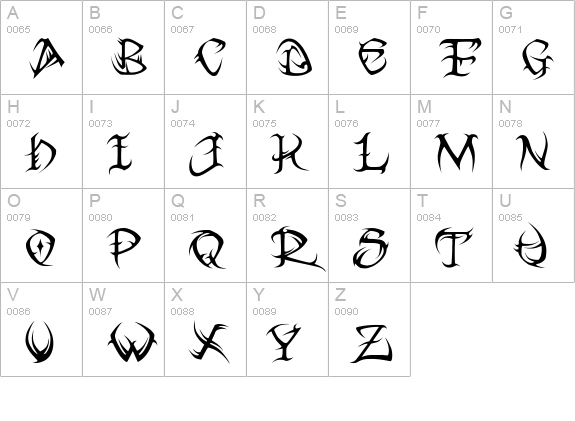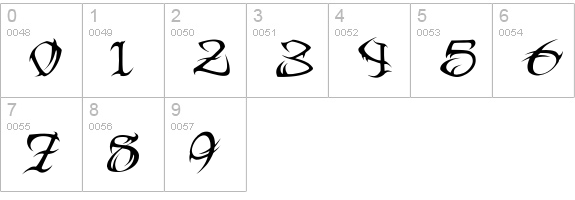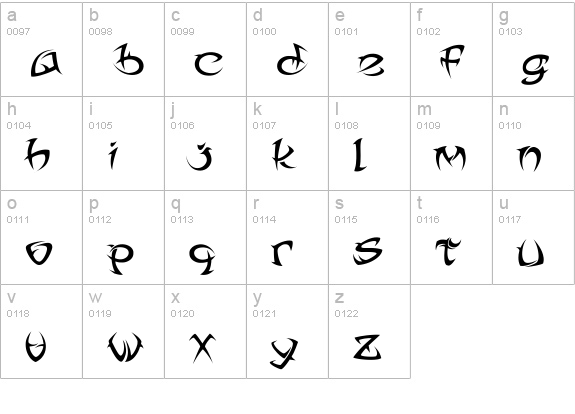
Tribal Two font is a captivating and bold typeface that exudes an air of tribal elegance. With its intricate and ornate design, this font is perfect for adding a touch of mystique and tribal flair to any project. Each letter is carefully crafted with an artistic touch, featuring unique tribal-inspired patterns that make it truly stand out. This font is not only visually stunning but also incredibly versatile. Its strong and distinct style makes it ideal for a wide range of creative applications, from logo design and branding to posters, invitations, and more. Whether you're looking to add a tribal twist to your designs or simply want to make a bold statement, Tribal Two font is sure to captivate and impress. One of the best features of Tribal Two font is that it is freely available to download at FontsMarket.com. This means that you can easily access and use this stunning font without any restrictions or limitations. With just a few clicks, you can bring the captivating essence of tribal art to your projects, without having to spend a penny. So, if you're looking to add a touch of tribal elegance to your designs, look no further than Tribal Two font. With its intricate details, bold style, and free availability, it is the perfect choice for any creative endeavor. Download it today from FontsMarket.com and let your creativity soar.